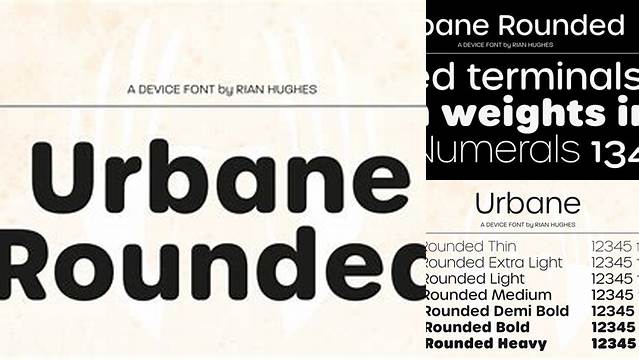
Hey guys, are you looking for a sleek and modern font to spice up your designs? You're in luck! Today, we're diving deep into the awesomeness of the Urbane Rounded Bold font and, the best part, how you can get your hands on a free download. This font is seriously versatile, perfect for everything from eye-catching headlines to stylish body text. Whether you're a seasoned designer, a budding content creator, or just someone who loves to personalize their projects, Urbane Rounded Bold is a fantastic choice. We'll explore its unique characteristics, where to find it, and even some cool ways to use it in your projects. Get ready to elevate your typography game! Let's get started, shall we?
1. What Makes Urbane Rounded Bold Font Special?
So, what's the deal with Urbane Rounded Bold font? Well, it's a modern, geometric sans-serif font with a rounded design, giving it a friendly yet professional vibe. The bold weight makes it stand out, ensuring your text grabs attention. The rounded edges soften the overall look, making it easy on the eyes and perfect for both digital and print media. Unlike some overly stylized fonts, Urbane Rounded Bold maintains excellent readability, even at smaller sizes. Its clean lines and balanced proportions make it incredibly versatile. This font isn't just about aesthetics; it's about functionality too. Urbane Rounded Bold is a workhorse font that can be used in various design contexts. It's equally at home on a website, a poster, or even a mobile app interface. It’s that blend of boldness and approachability that makes it a star. The design speaks volumes, showcasing an understanding of contemporary design principles. Consider the way it adds a touch of elegance without being overly fussy. It manages to be both sophisticated and accessible, making it a great choice for many projects. It’s also adaptable to different styles, meaning it can fit right in with a minimalist project or a more colorful, energetic one. You can see why it’s becoming a go-to font for designers worldwide. The clean, clear letterforms are easy on the eyes and ensure great readability. The designers clearly prioritized legibility and visual appeal, making Urbane Rounded Bold a font that’s as functional as it is beautiful. When you are considering Urbane Rounded Bold font free download you can utilize the font for business cards and corporate branding, ensuring a cohesive and modern look across all materials. It gives any project an instant upgrade. It's a fantastic font to add to your collection.
1.1. The Distinctive Features of Urbane Rounded Bold
Let's delve deeper into what makes Urbane Rounded Bold stand out. One of the key features is its geometric design, which provides a clean, contemporary look. The rounded terminals give the font a softer, more approachable feel, making it inviting and less harsh than fonts with sharp edges. This is especially beneficial for digital interfaces, where a friendly appearance can improve the user experience. Its boldness ensures excellent visibility and impact. The design is carefully balanced, with each letterform crafted to work harmoniously with the others. Another notable aspect is its excellent readability. Whether you're using it for a headline or a paragraph of text, Urbane Rounded Bold maintains its clarity, which is crucial for effective communication. The font's versatility is also worth mentioning; it can be used across various applications, from web design to print materials. It's suitable for both display and body text, showcasing its adaptability. This is why many designers love it. The rounded elements, combined with the boldness, make the font extremely visually appealing. It has a certain warmth and approachability that makes it memorable. It also allows for excellent versatility in creating a variety of designs. Think of its use in branding, where it can project a sense of trustworthiness and modernity, or in website headers, where it can instantly grab attention. The design is also excellent in smaller point sizes. This ensures readability. The visual clarity of the font makes it great for creating documents that are easy to read.
1.2. Aesthetic Appeal and Versatility of Urbane Rounded Bold
The Urbane Rounded Bold font is a visual treat, isn't it? Its design blends modernity with a touch of playfulness, making it suitable for a wide range of projects. The rounded edges give it a soft, welcoming feel, which is in stark contrast to the often rigid appearance of traditional sans-serif fonts. This unique characteristic allows it to be used in contexts where you need to project a friendly and approachable image. In addition to its aesthetic qualities, Urbane Rounded Bold is also incredibly versatile. It works equally well in headlines, subheadings, and even body text. You can use it on websites, in print materials, and in your social media graphics. The possibilities are endless. The font’s bold weight ensures your message stands out, grabbing the viewer's attention immediately. This is especially useful in crowded digital spaces, where it’s crucial to make a strong visual impact. Consider using it for logos, posters, or advertisements. Its bold appearance makes it easy to read, ensuring your message is clear and concise. Its versatility and aesthetic appeal make it perfect for brands looking to create a modern, clean, and memorable identity. It can be customized further by adjusting its size, color, and other design elements. It can create a consistent look and feel across various platforms. The font's ability to harmonize with different design elements allows you to express your brand's personality. It is also capable of bringing your design to life. This combination of aesthetics and functionality is what makes it a favorite among designers.